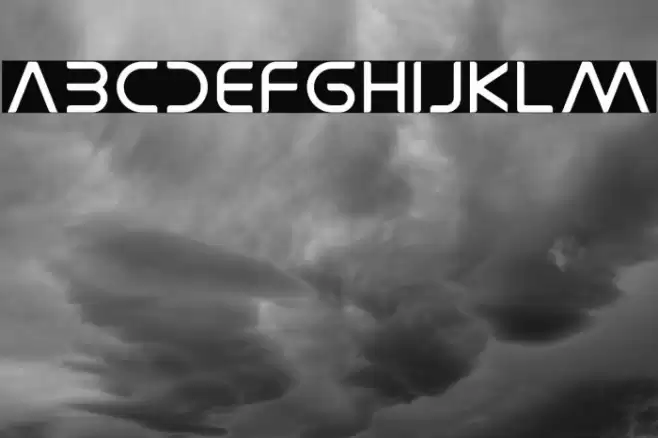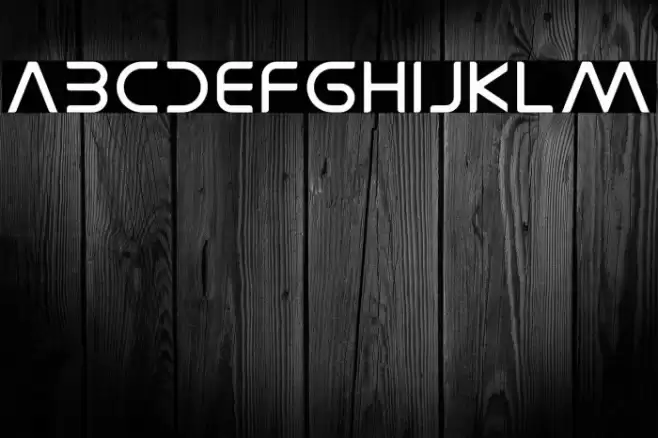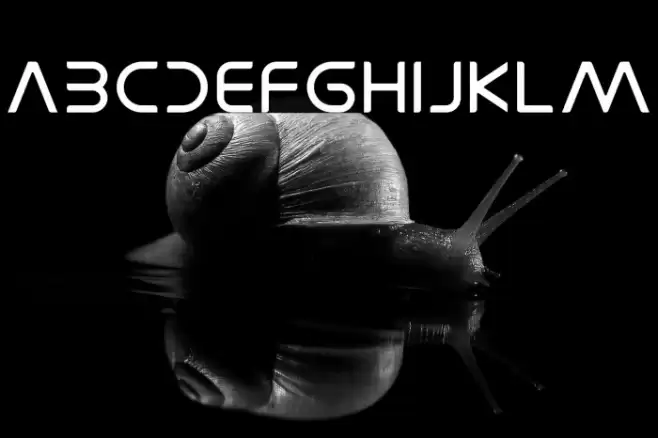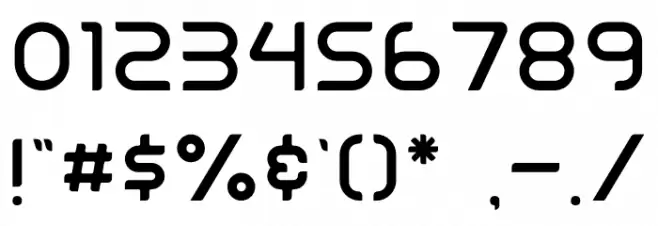
Betelguesse Font
Betelguesse Description
This font features a modern and futuristic design with a geometric and slightly rounded appearance. The uppercase letters are bold and distinct, with a consistent stroke width that gives a clean and streamlined look. The lowercase letters maintain the geometric style, offering a harmonious balance between curves and straight lines. The numerals are clear and easy to read, matching the overall aesthetic of the alphabet. Special characters are designed with the same attention to detail, ensuring they integrate seamlessly with the rest of the font. This font is versatile, suitable for various digital and print applications, where a contemporary and sleek look is desired.
A modern, geometric font with a clean and futuristic design from Uncategorized fonts.
- Font: Betelguesse
- Proposed Projects: Ideal for tech branding, digital interfaces, modern advertising, and futuristic-themed projects.
- Use Case: Headlines, Logos, Digital interfaces